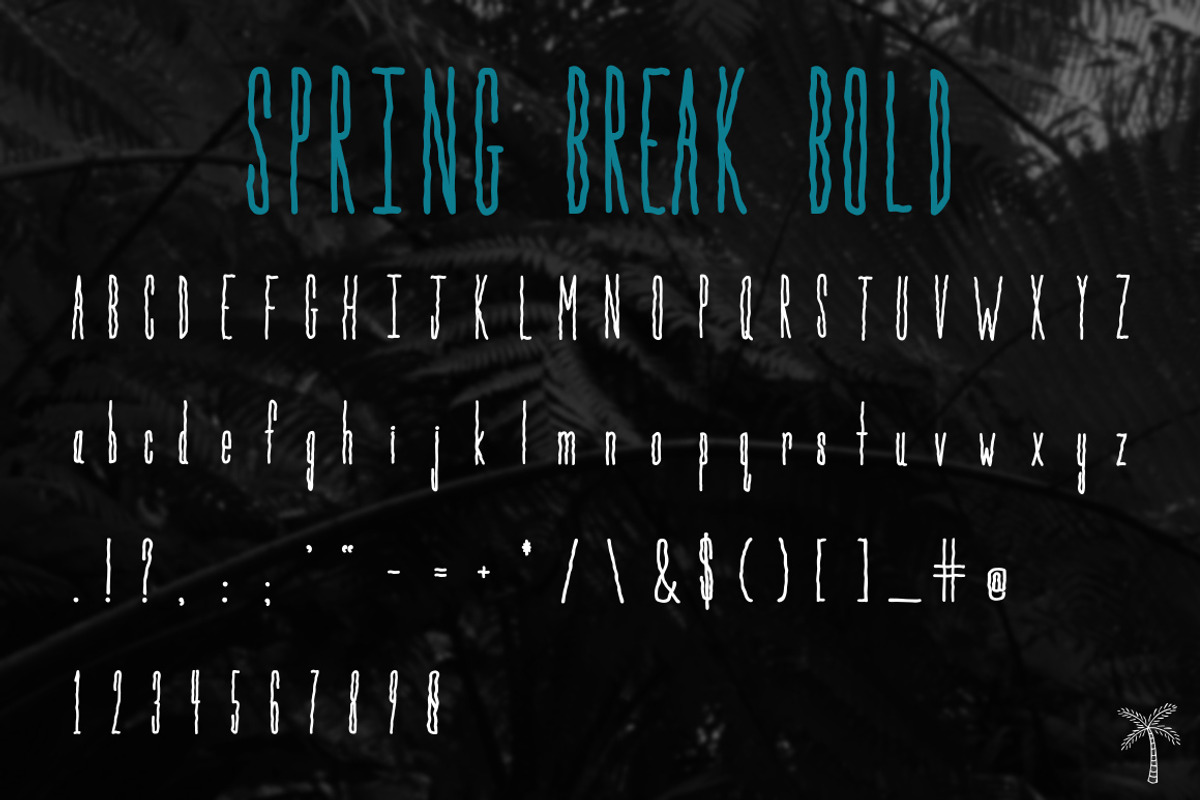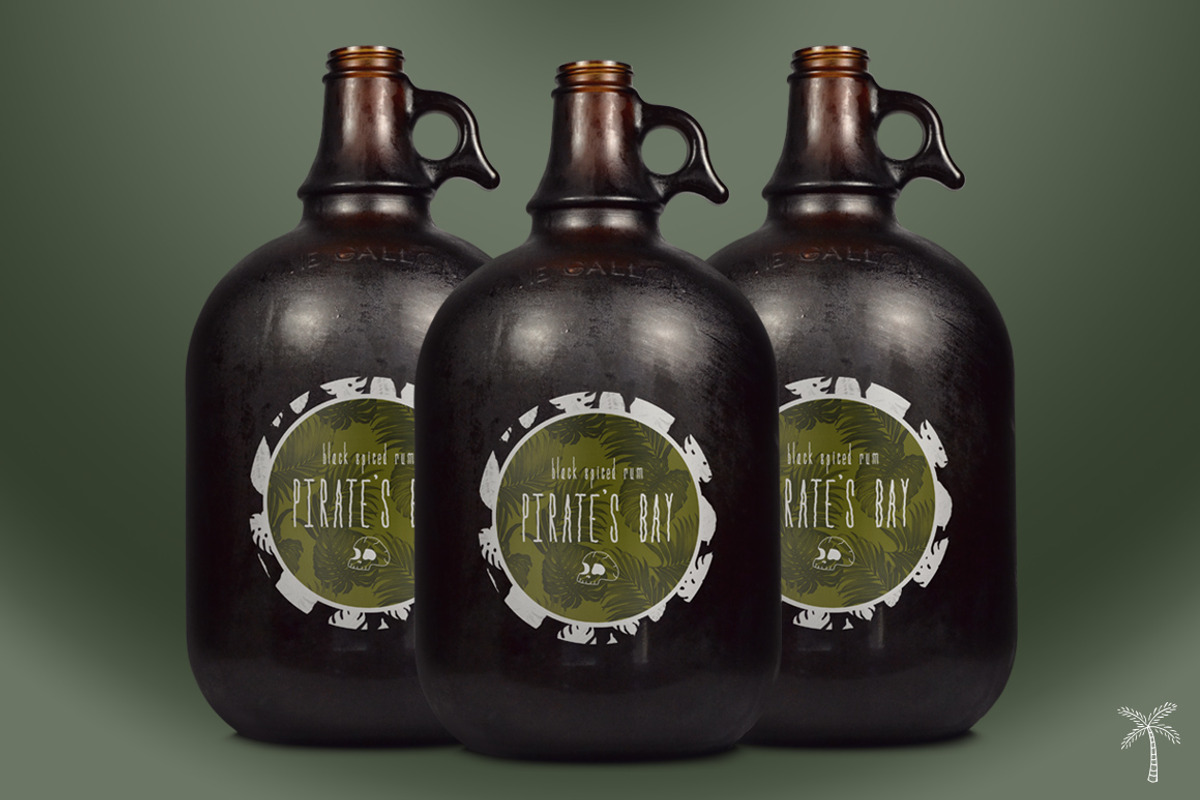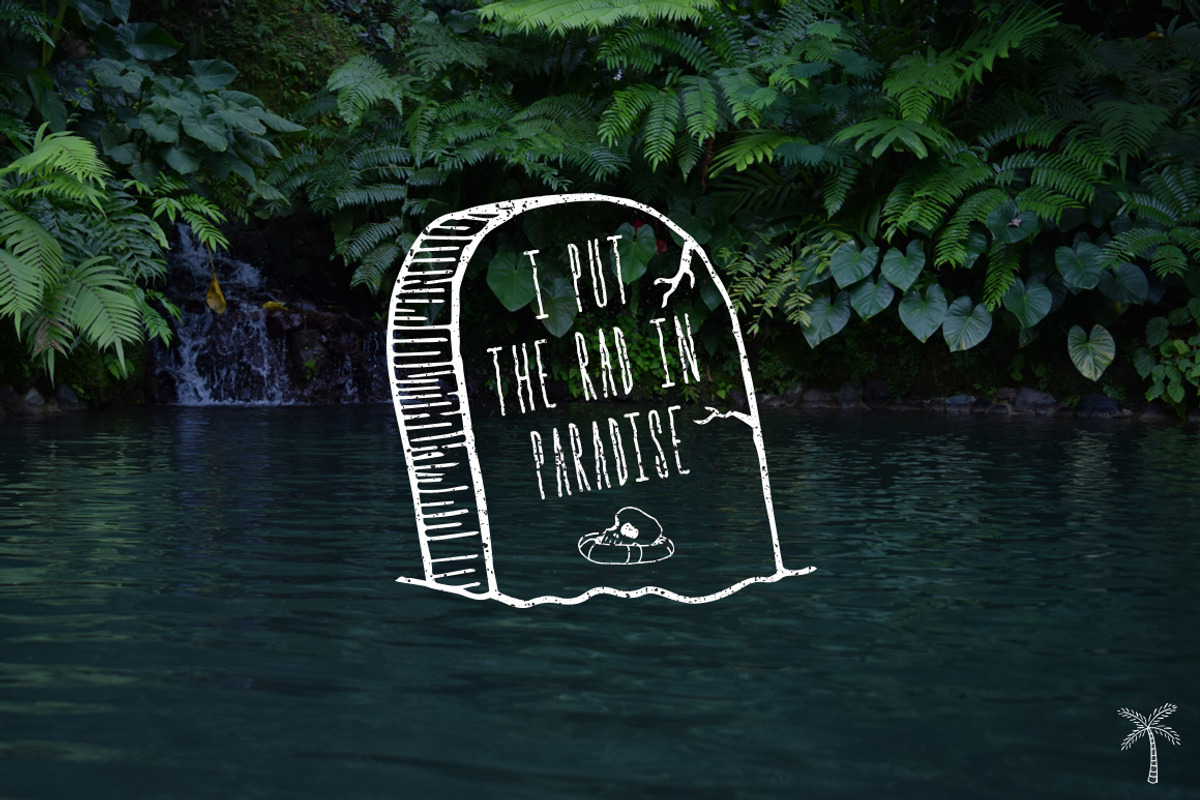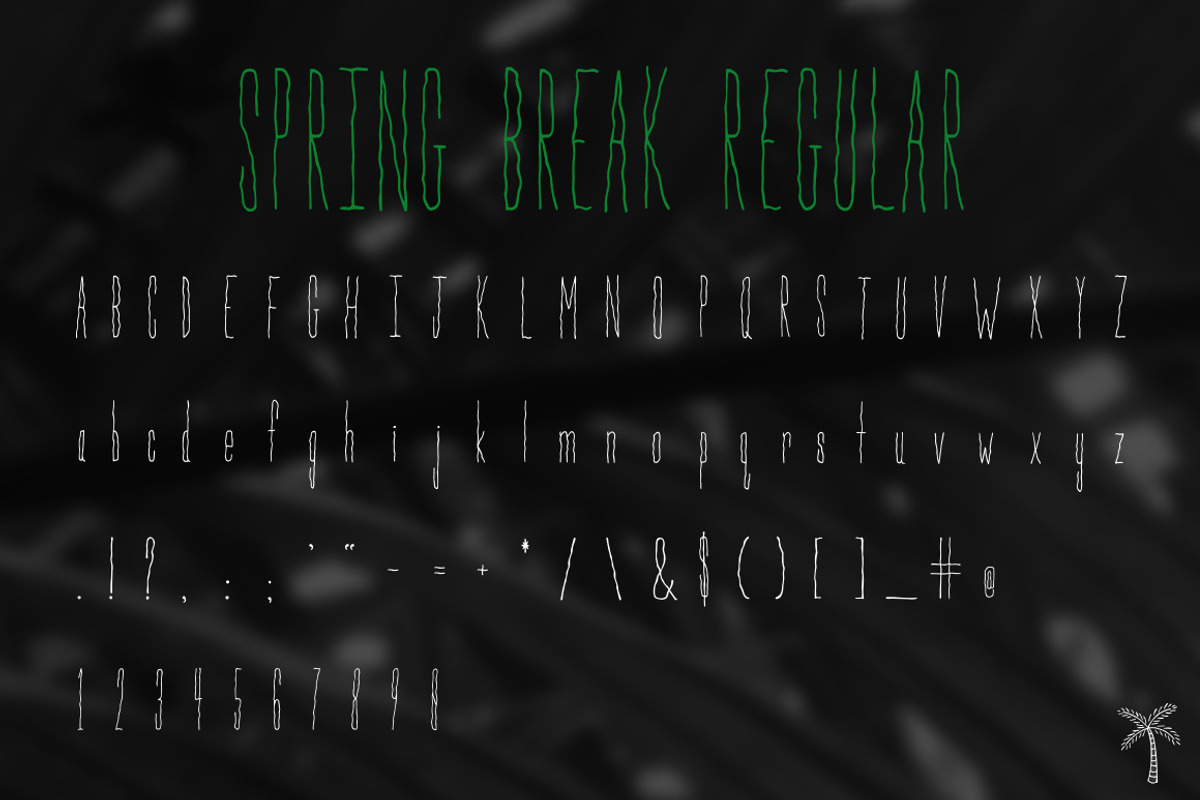
Spring Break Font + Bonus Graphics
Spring Break Font + Bonus Graphics by Spring Break Jake is a font selected for branding, posters, packaging, typography.
- SpringBreak Regular
- SpringBreak Bold
Spring Break Font + Bonus Graphics by Spring Break Jake fits naturally into Branding, posters, packaging, typography.